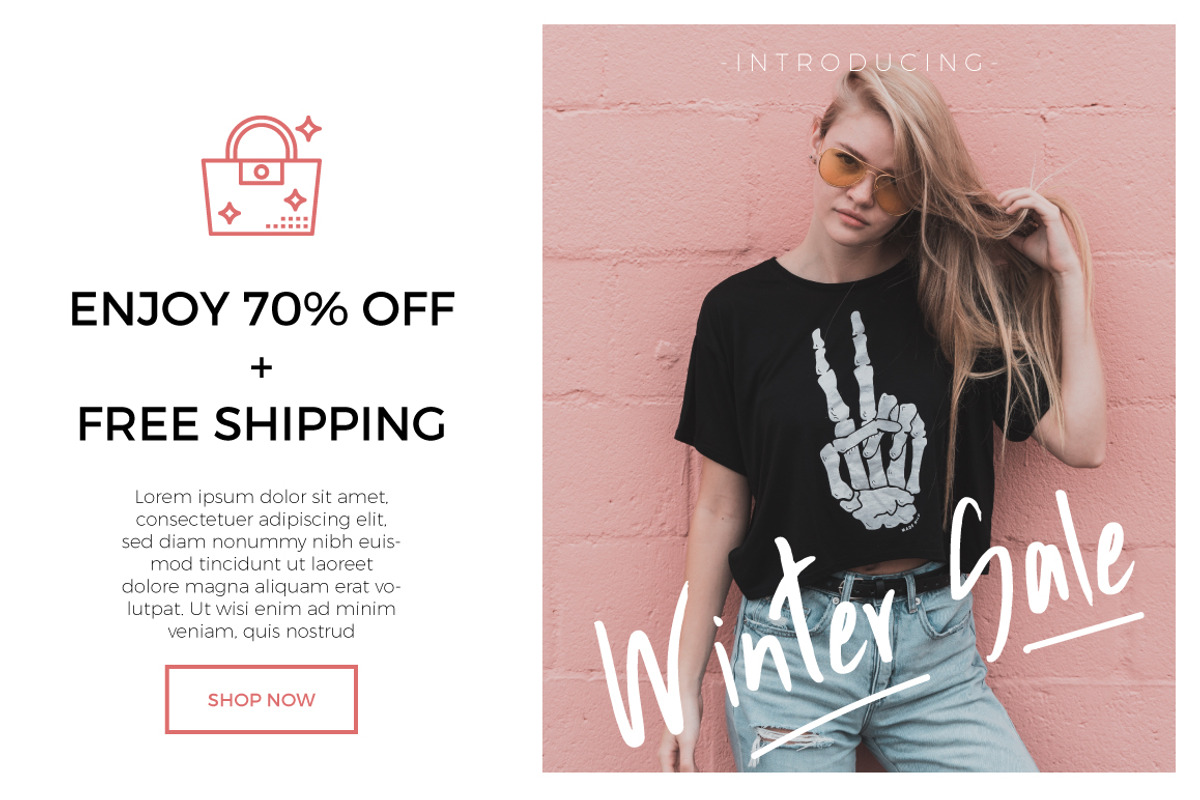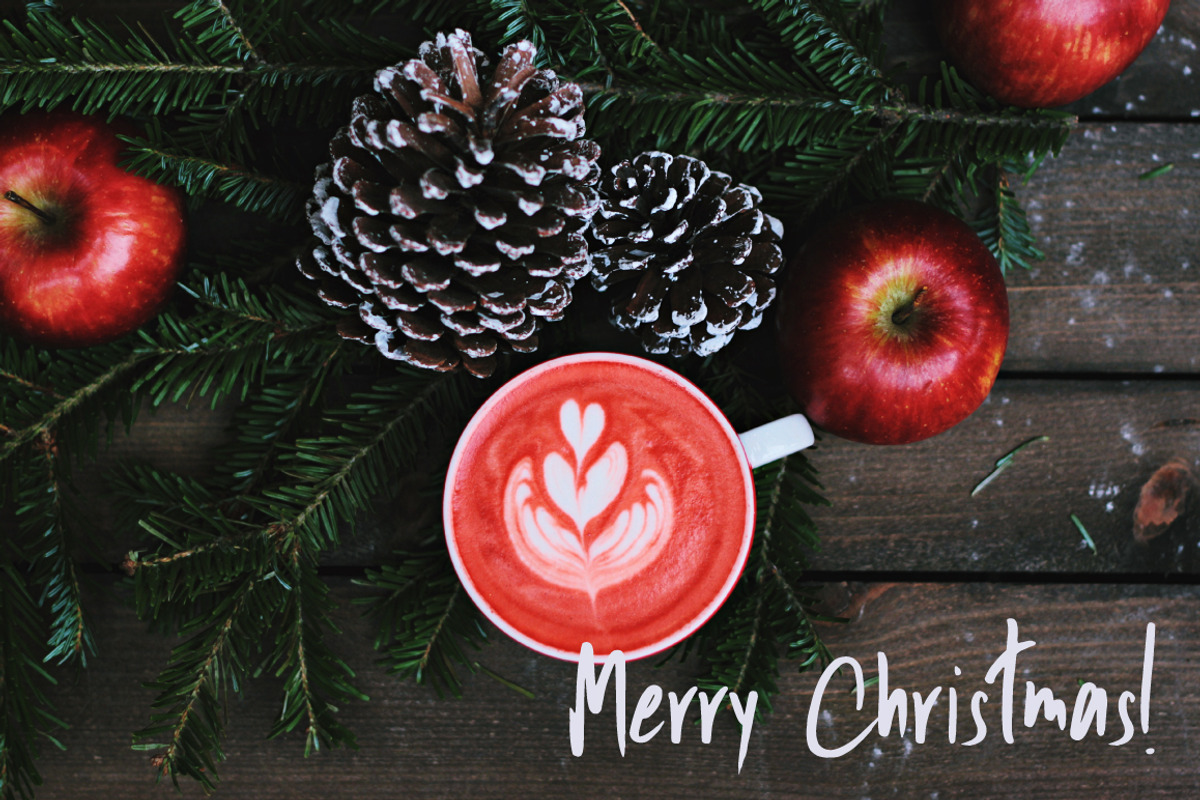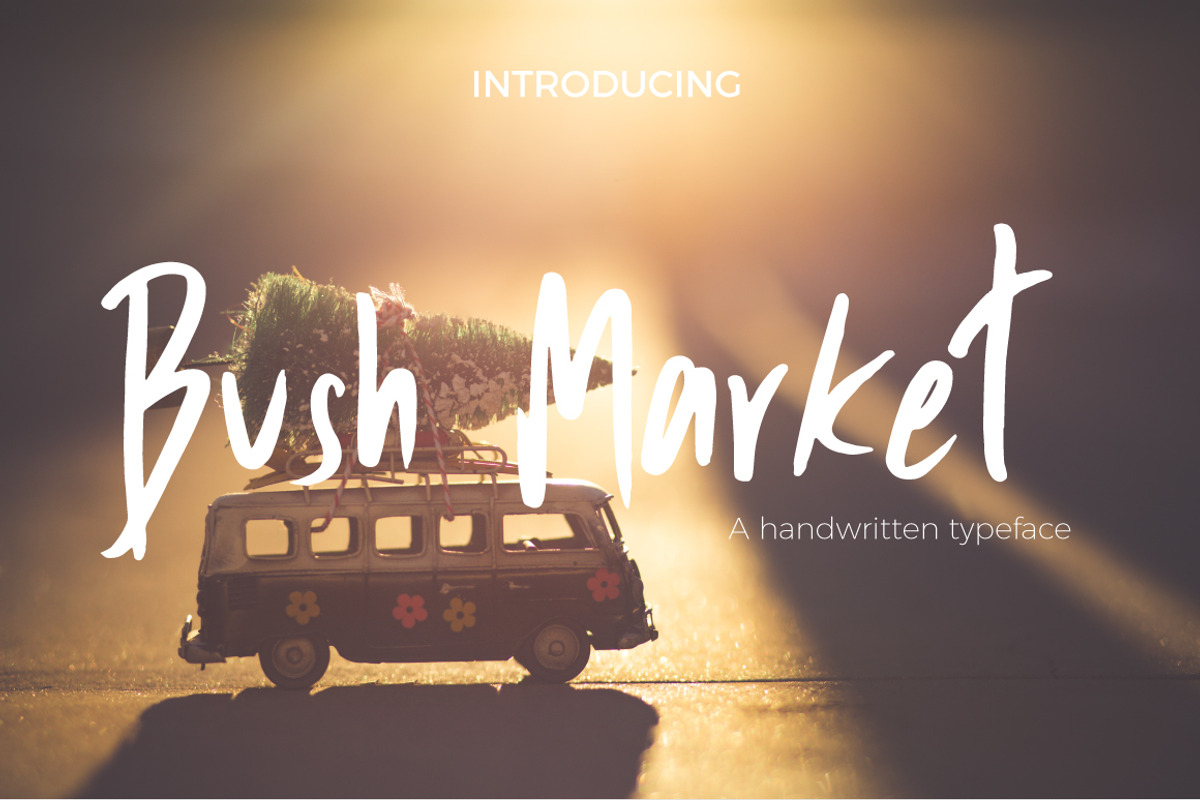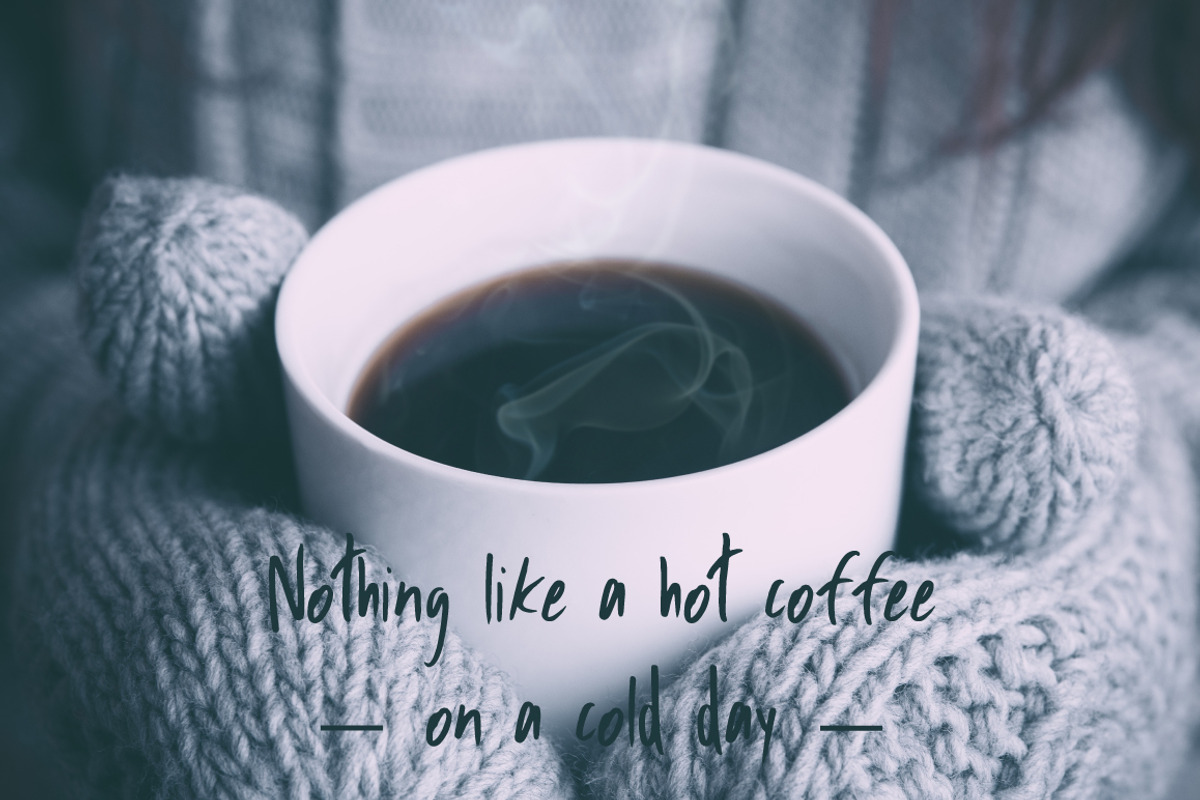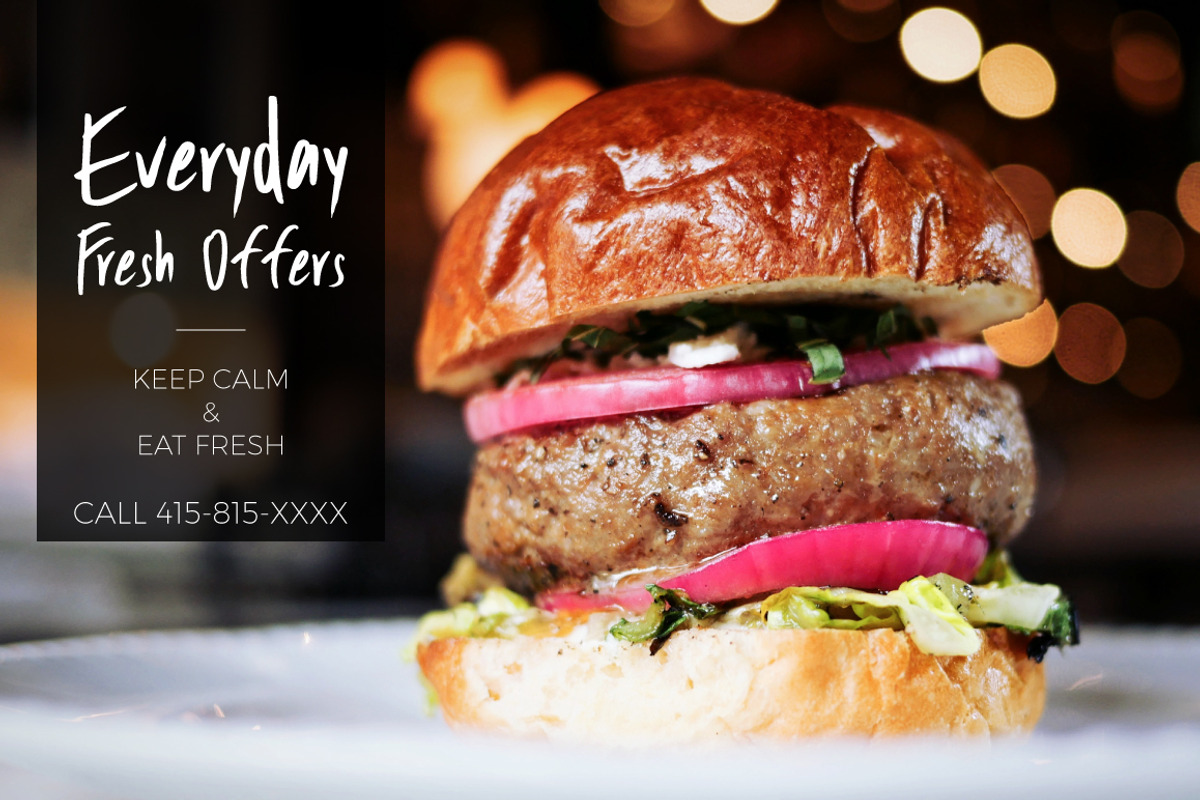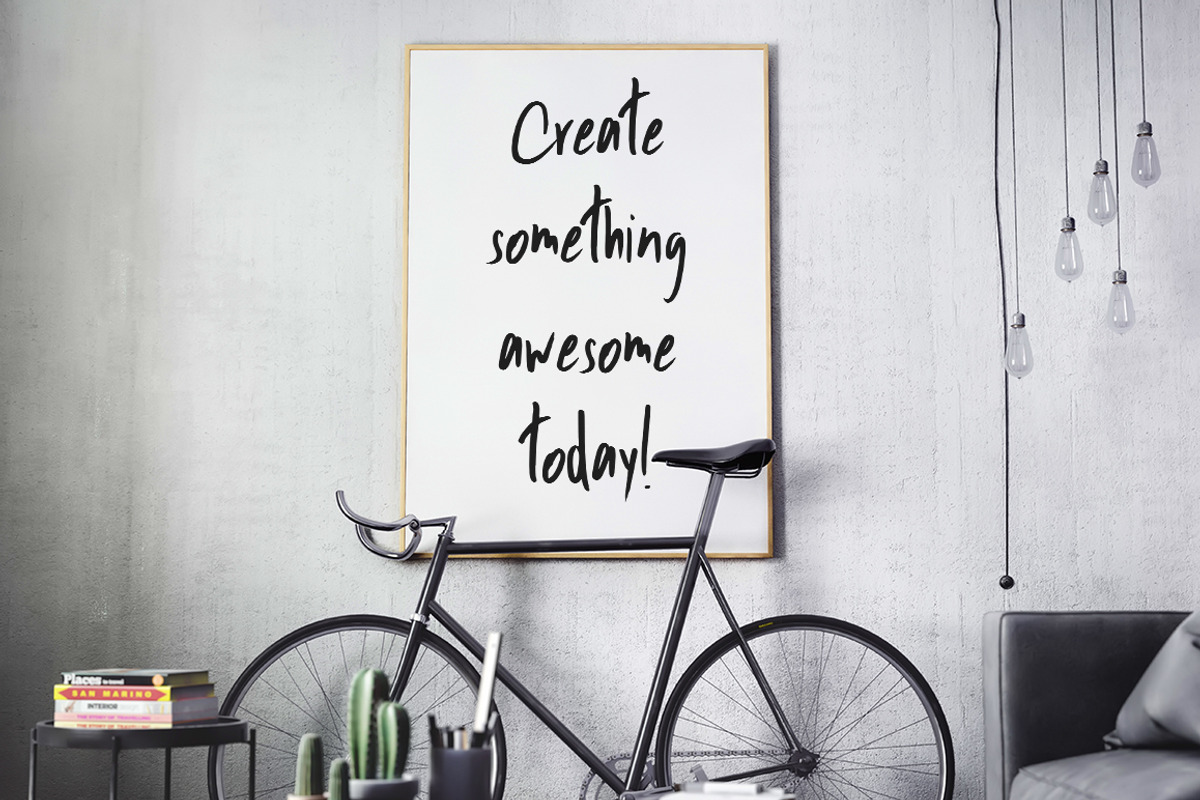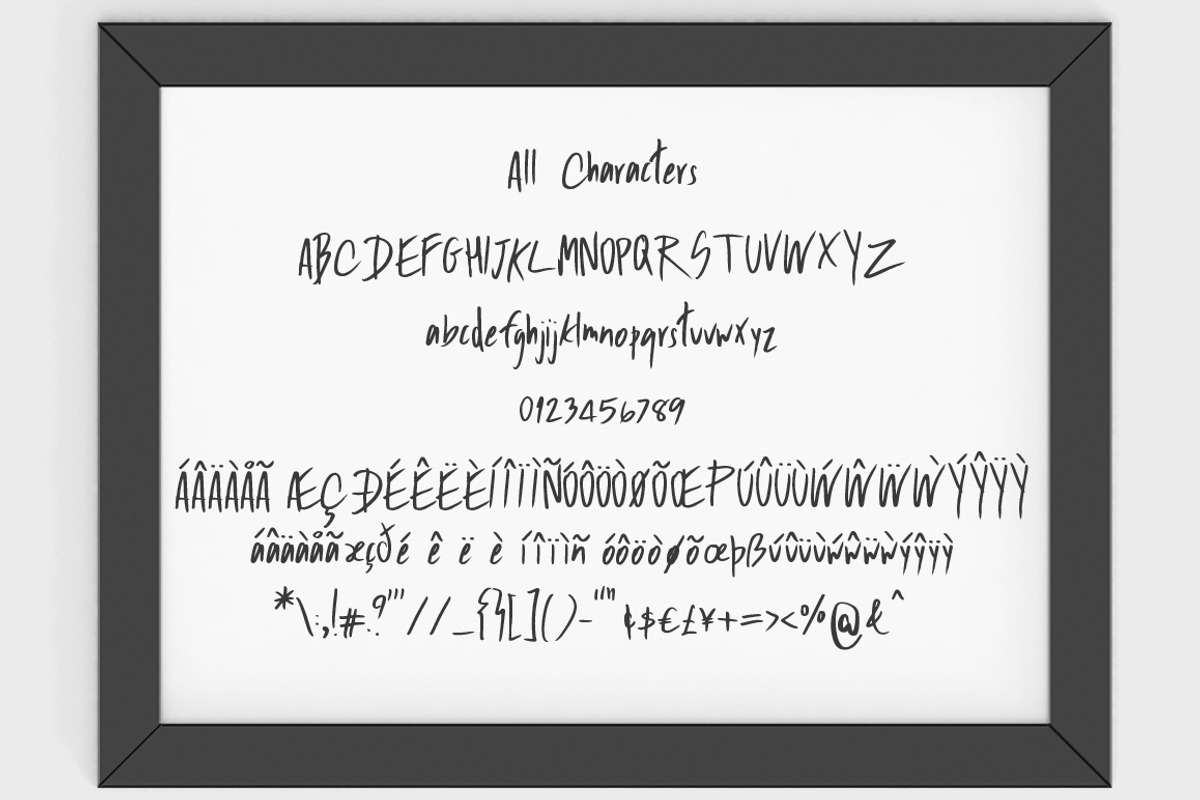
Bush Market Script Font
Bush Market is a handwriting script typeface designed to give off a bouncing and aggressive vibe.
- Standard English(A-Z, a-z)
- Western European languages supported, numbers(0-9), punctuations